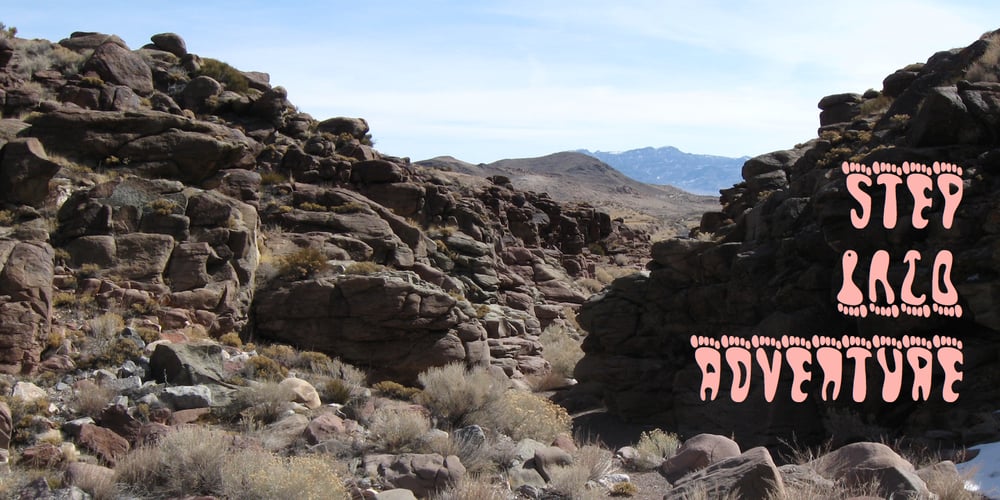
Pedestrian Font Family was designed by Robert Schenk and published by Ingrimayne Type. Pedestrian contains 3 styles and family package options. The letters in this font are made by chopping bits from footprints. Individual letters are sometimes very hard to decipher, but when put together as words they are usually readable. In Pedestrisan-Regular, the original version of this font, the upper-case letters have toes on the top the lower case letters have toes on the bottom. All the feet with letters are right feet. The upper case and lower case do not mix. In 2020 two alternate versions were created. In Pedestrian-Alt all toes are on the top but the lower-case letters are left feet. In Pedestrian-AltTwo all toes are on the bottom with the upper-case letters being cut from left feet and the lower case from right feet. Both the alternate styles also have an alternate set of numbers on the unicode circled numbers that can also be accessed with an OpenType feature.